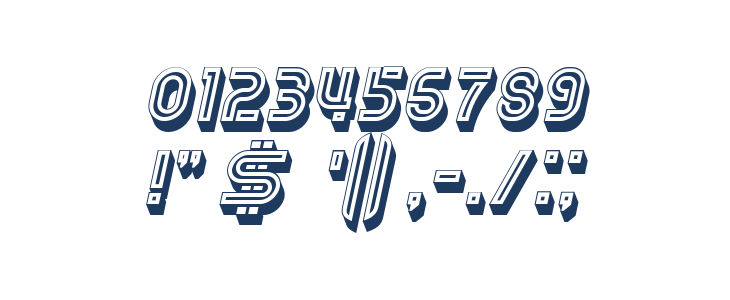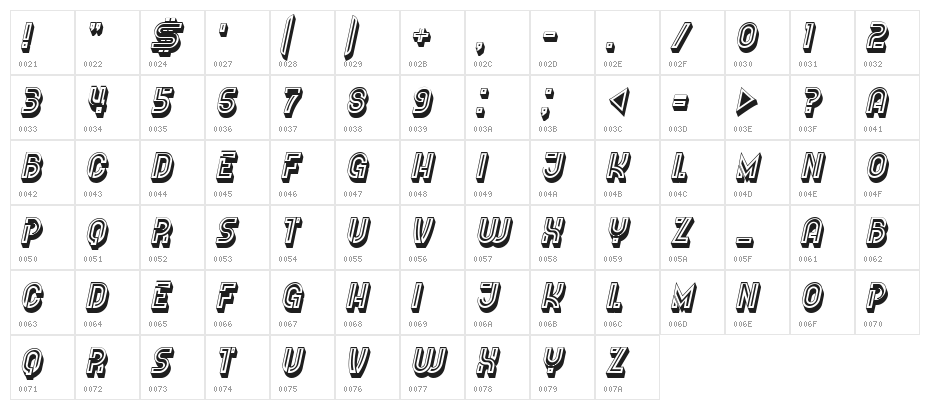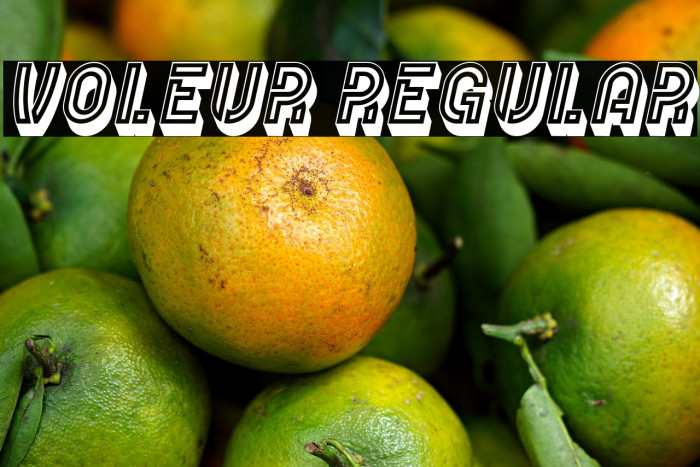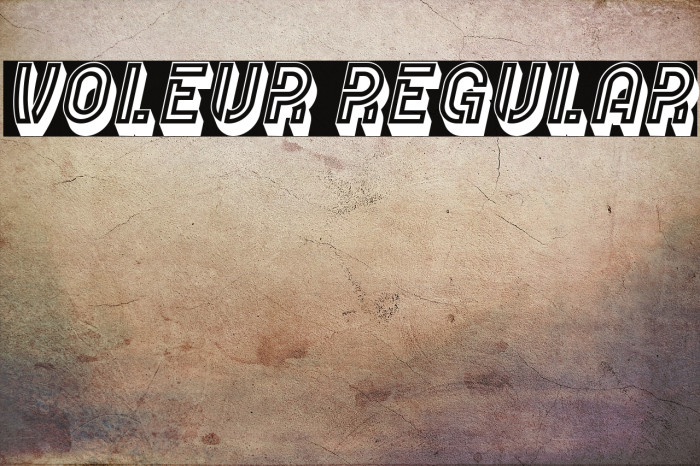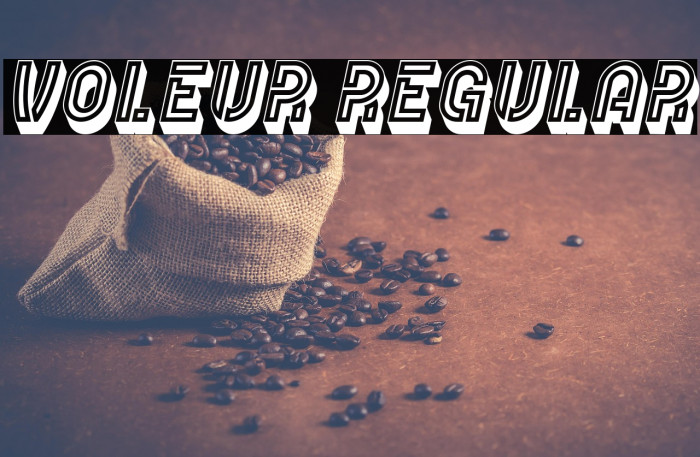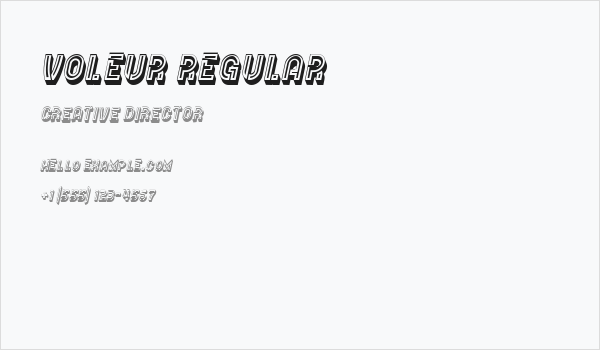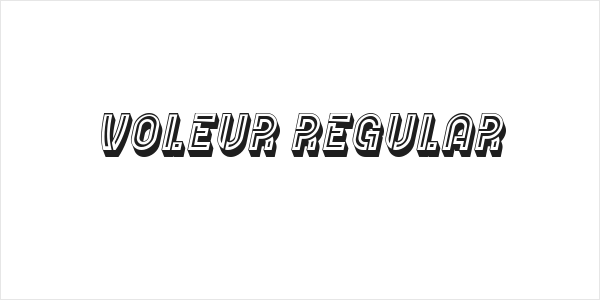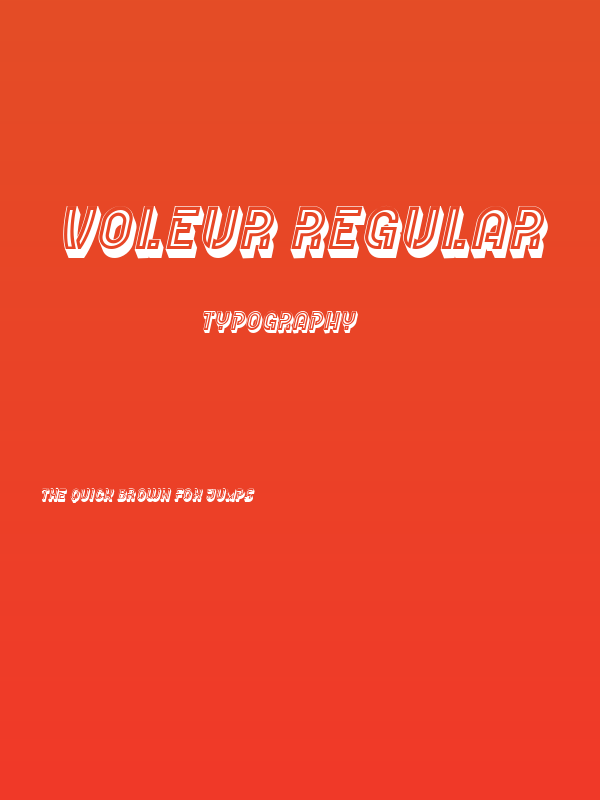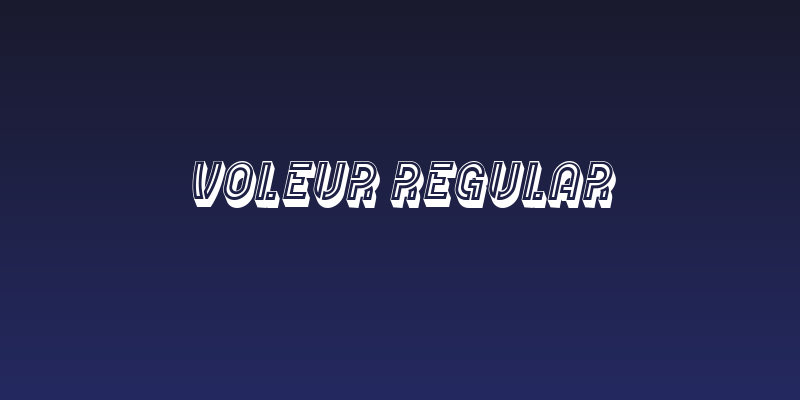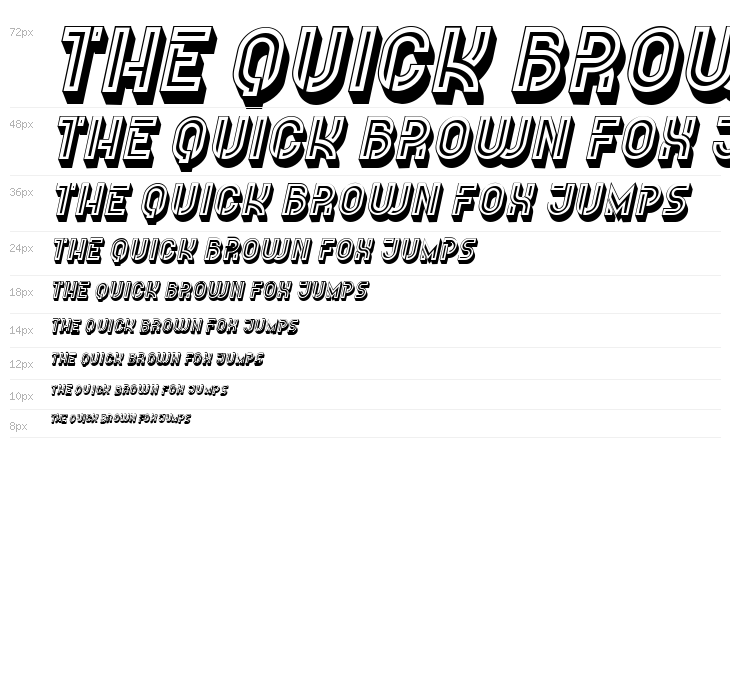
Voleur Regular Font
Voleur Regular Description
This font features a bold, three-dimensional design with a distinct shadow effect that gives it a striking, standout appearance. Each character is outlined with a thick black border, enhancing the depth and making it highly visible. The letters are uppercase and have a geometric, blocky style with rounded edges, adding a modern touch. The numbers and special characters follow the same design principles, ensuring consistency across all glyphs. This font is ideal for projects that require a bold and attention-grabbing headline or title.
| Proposed Projects | Ideal for posters, headlines, logos, and any design requiring a strong visual impact. |